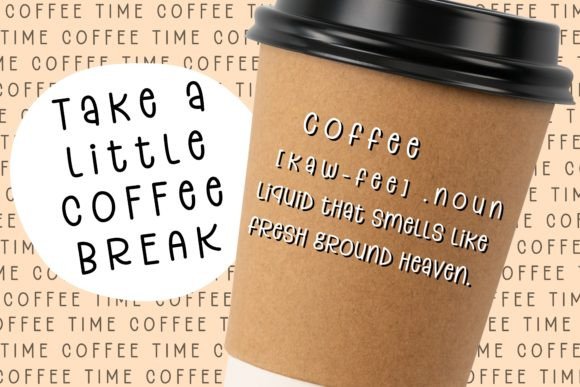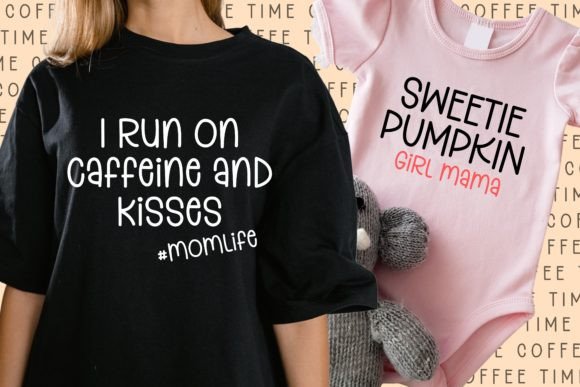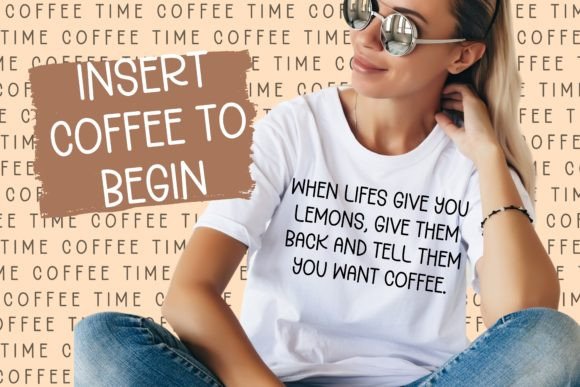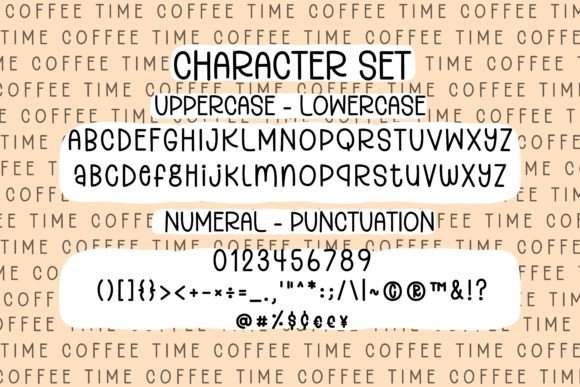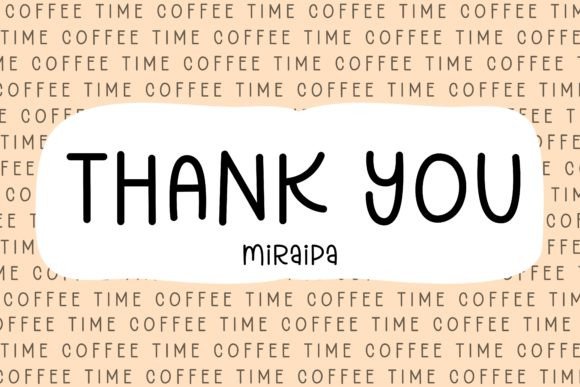
Introducing Caramel Macchiato Font: The Perfect Addition to Your Design Projects
Are you tired of using the same old fonts in your design projects? Look no further than the Caramel Macchiato Font, a cute and playful sans serif font that’s sure to add a touch of whimsy to your creations. With its charming and quirky style, this font is perfect for a wide range of projects, from Easter and back to school designs to wedding invitations and party decorations.
What Makes Caramel Macchiato Font So Special?
Caramel Macchiato Font is designed to be friendly and approachable, making it ideal for designs that need a personal touch. Its sans serif style gives it a clean and modern look, while its playful curves and lines add a touch of sweetness and charm. Whether you’re creating posters, blogs, clothing, or child-related designs, this font is sure to delight your audience.
One of the best things about Caramel Macchiato Font is its versatility. It’s suitable for a wide range of projects, including:
- Easter and spring-themed designs
- Back to school and education-related projects
- Wedding invitations and party decorations
- Fall and Halloween designs
- Christmas and holiday-themed projects
- Blogs and social media posts
- Clothing and apparel designs
- Child-related designs and kids’ products
Why Choose Caramel Macchiato Font?
So why choose Caramel Macchiato Font for your design projects? Here are just a few reasons:
- Unique and eye-catching: This font is sure to stand out from the crowd and grab attention.
- Versatile: It can be used for a wide range of projects and designs.
- Easy to read: The clean and modern sans serif style makes it easy to read, even at small sizes.
- Fun and playful: This font adds a touch of whimsy and fun to any design.
Tips for Using Caramel Macchiato Font
Here are a few tips for getting the most out of Caramel Macchiato Font:
- Use it for headings and titles: This font is perfect for headings and titles, where you want to make a big impact.
- Pair it with other fonts: Try pairing Caramel Macchiato Font with other fonts for a unique and interesting look.
- Experiment with colors: This font looks great in a wide range of colors, so don’t be afraid to experiment and find the perfect hue for your design.
| Font Name | Caramel Macchiato Font |
| Author | miraipa |
If you’re looking for a font that’s cute, playful, and versatile, look no further than Caramel Macchiato Font. With its charming and whimsical style, this font is perfect for a wide range of design projects. Whether you’re a designer, crafter, or DIY enthusiast, this font is sure to become a favorite in your collection.